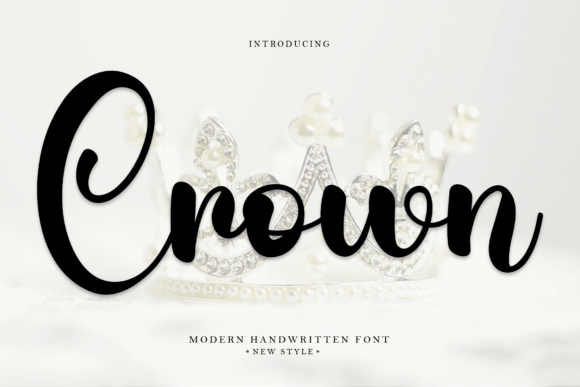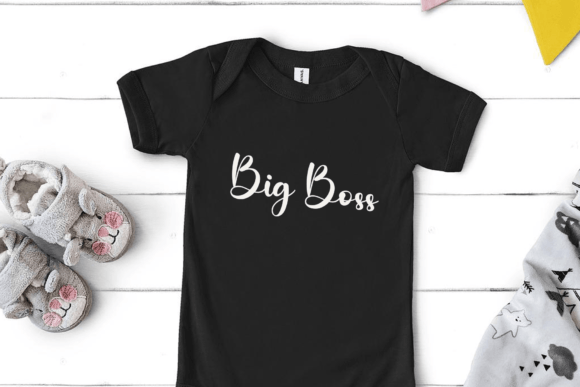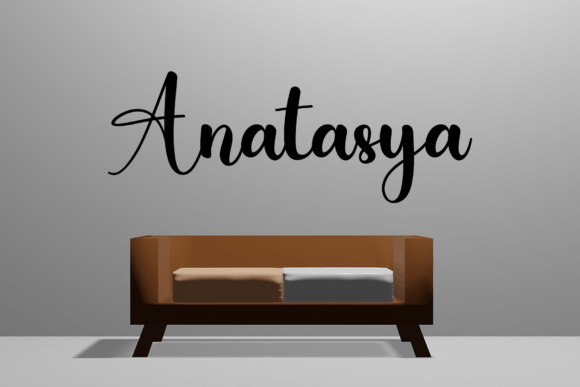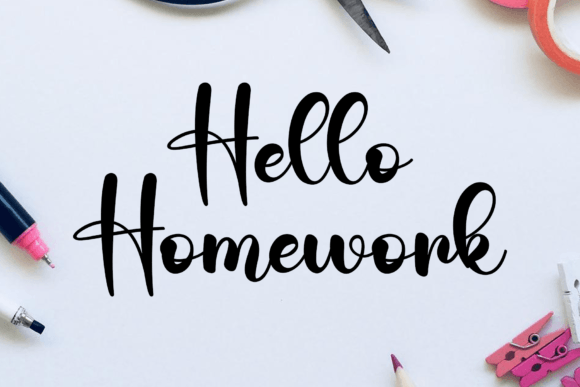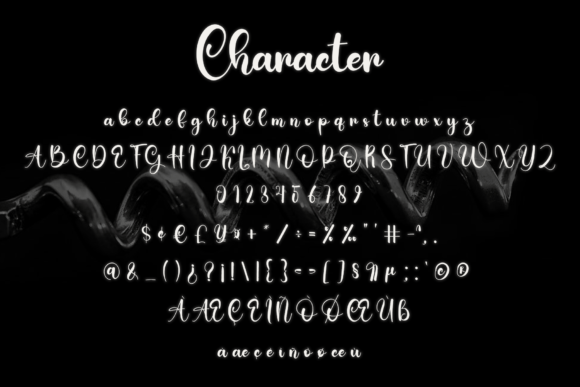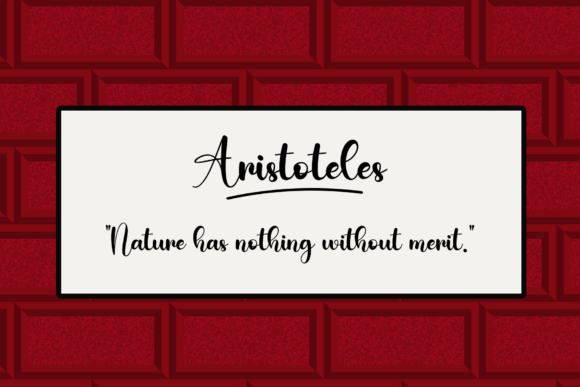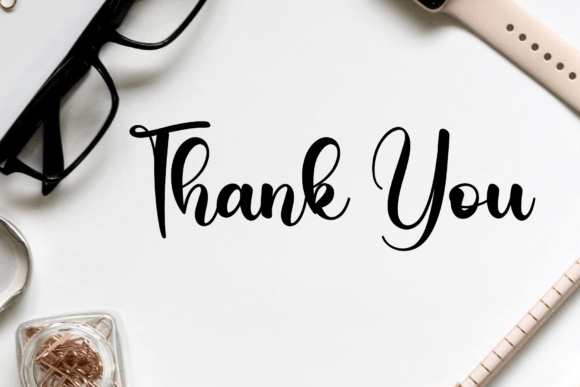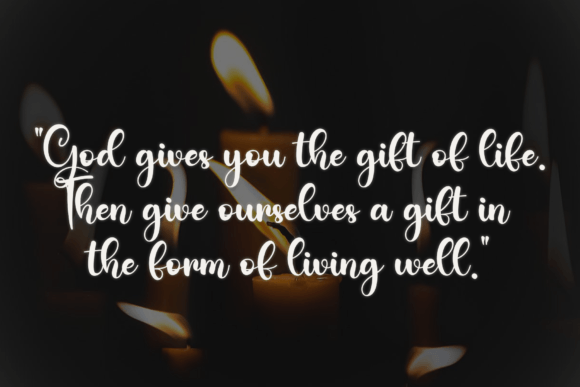
Crown Font
About Crown Font
“Crown” is a distinctive round-lettered handwritten font meticulously designed to impart a unique and impactful touch to your creative projects. Tailored for a range of applications, this font can elevate your titles, invitations, letters, and more, transforming them into standout pieces.
The circular, rounded elements of “Crown” contribute to its distinctiveness, creating a visual appeal that sets it apart. The font’s uniqueness makes it well-suited for various design contexts, allowing you to experiment with different styles and themes.
Consider incorporating “Crown” into your titles to add a touch of character and individuality. Whether you’re working on invitations for a special event, crafting letters with a personal touch, or designing other creative pieces, this font offers a versatile and eye-catching option.
The handwritten quality of “Crown” adds an organic and authentic feel to your text, making it more engaging and relatable. Its carefully crafted design ensures that it maintains a balance between uniqueness and readability, making it suitable for a wide range of design projects.
Experiment with different sizes, weights, and color schemes to see how “Crown” can enhance your overall design aesthetic. The font’s adaptability allows it to seamlessly integrate into various visual styles, providing you with the flexibility needed for diverse creative endeavors.
Incorporate “Crown” into your font collection and explore the ways it can bring a distinctive flair to your designs. Its careful construction and round-lettered charm make it a valuable asset for anyone looking to infuse their projects with a touch of creativity and individuality.